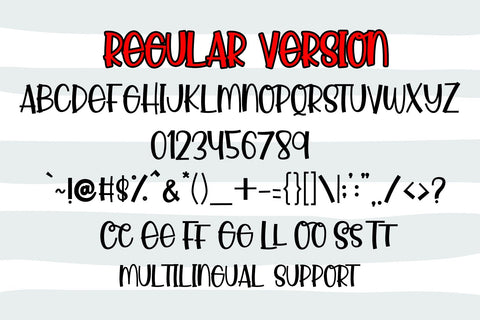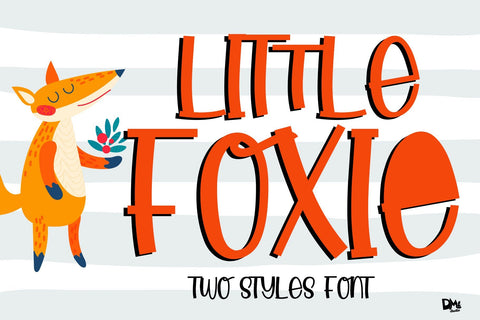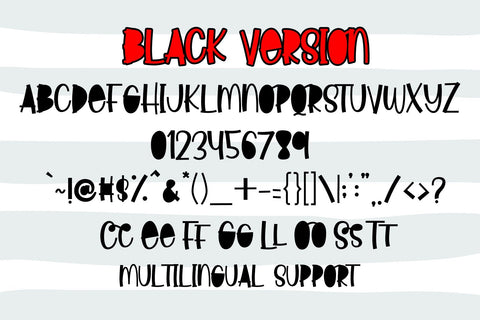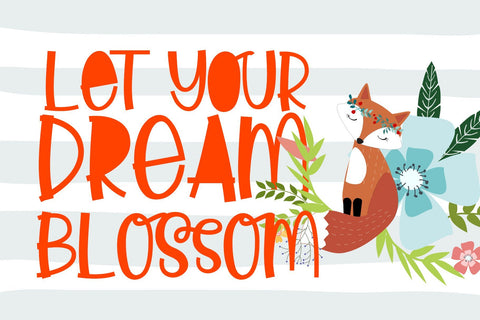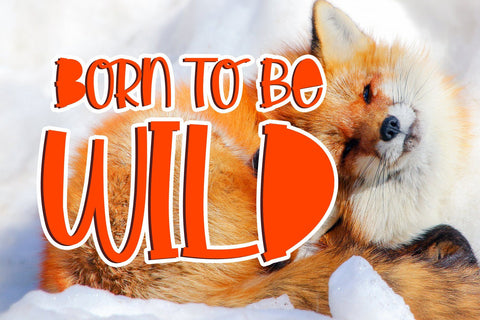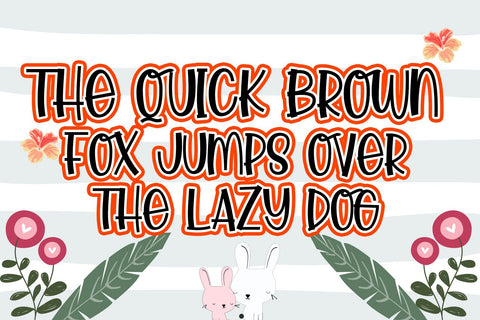
Little Foxie -- Two Styles ALL Caps Font
Little Foxie - Two Styles Font
The sweet, clean and crafty Little Foxie Font!
Comes with two versions, Regular and Black Version.
- All in Caps Characters
- Numeric
- Symbols
- 2 Styles version, Regular and Black